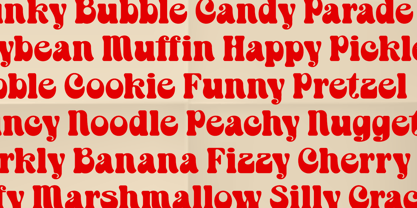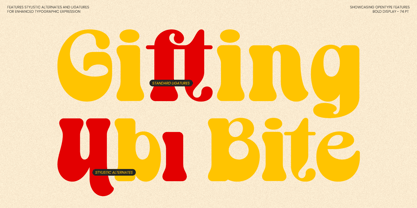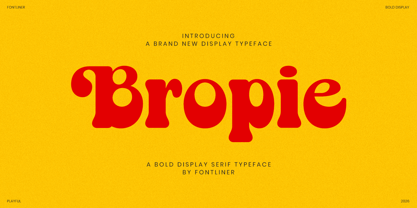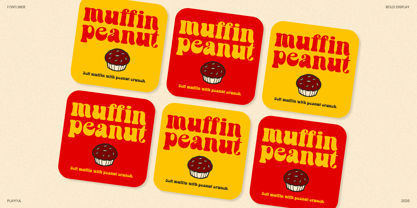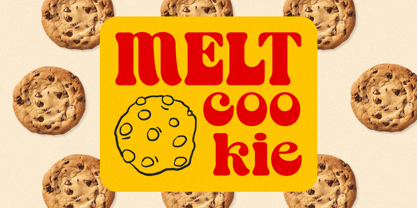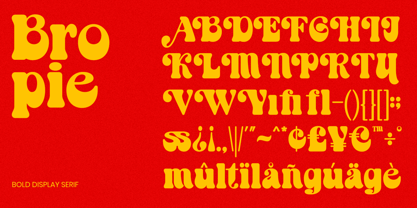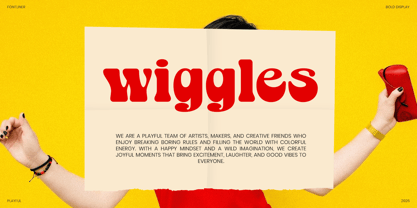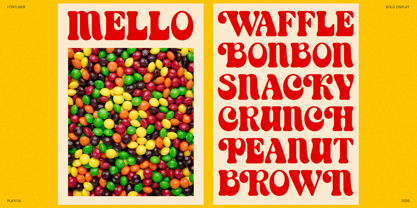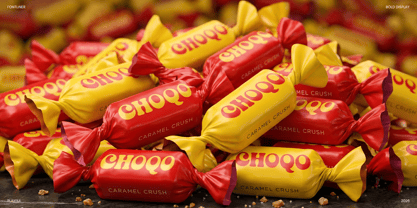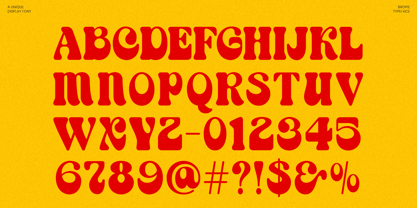
Bropie
La familia tipográfica Bropie fue diseñada por Ghina Luthfiarieska y publicada por Font Liner. Bropie contiene 2 estilos y opciones de paquete familiar. Más información sobre esta familia
Meet Bropie, a bold display serif typeface that radiates playful confidence and retro charm. Inspired by vintage editorial headlines, nostalgic packaging, and expressive branding from the golden era of print, Bropie delivers a distinctive personality with its chunky curves, dramatic serifs, and eye-catching letterforms. Designed to make a statement, this typeface transforms ordinary text into unforgettable visual storytelling.
Perfect for branding projects, logo design, food packaging, café branding, poster headlines, editorial layouts, product packaging, social media campaigns, merchandise, album covers, and bold advertising visuals, Bropie thrives anywhere strong character and visual impact are essential. Its retro-modern personality makes it especially effective for lifestyle brands, creative agencies, fashion campaigns, and playful product identities seeking a memorable typographic voice.
Whether you're crafting a nostalgic brand identity or building bold contemporary visuals with vintage energy, Bropie gives your projects unmistakable charm and commercial appeal. Designed for creators who want typography that feels expressive, premium, and instantly recognizable.
- Stylistic Alternates